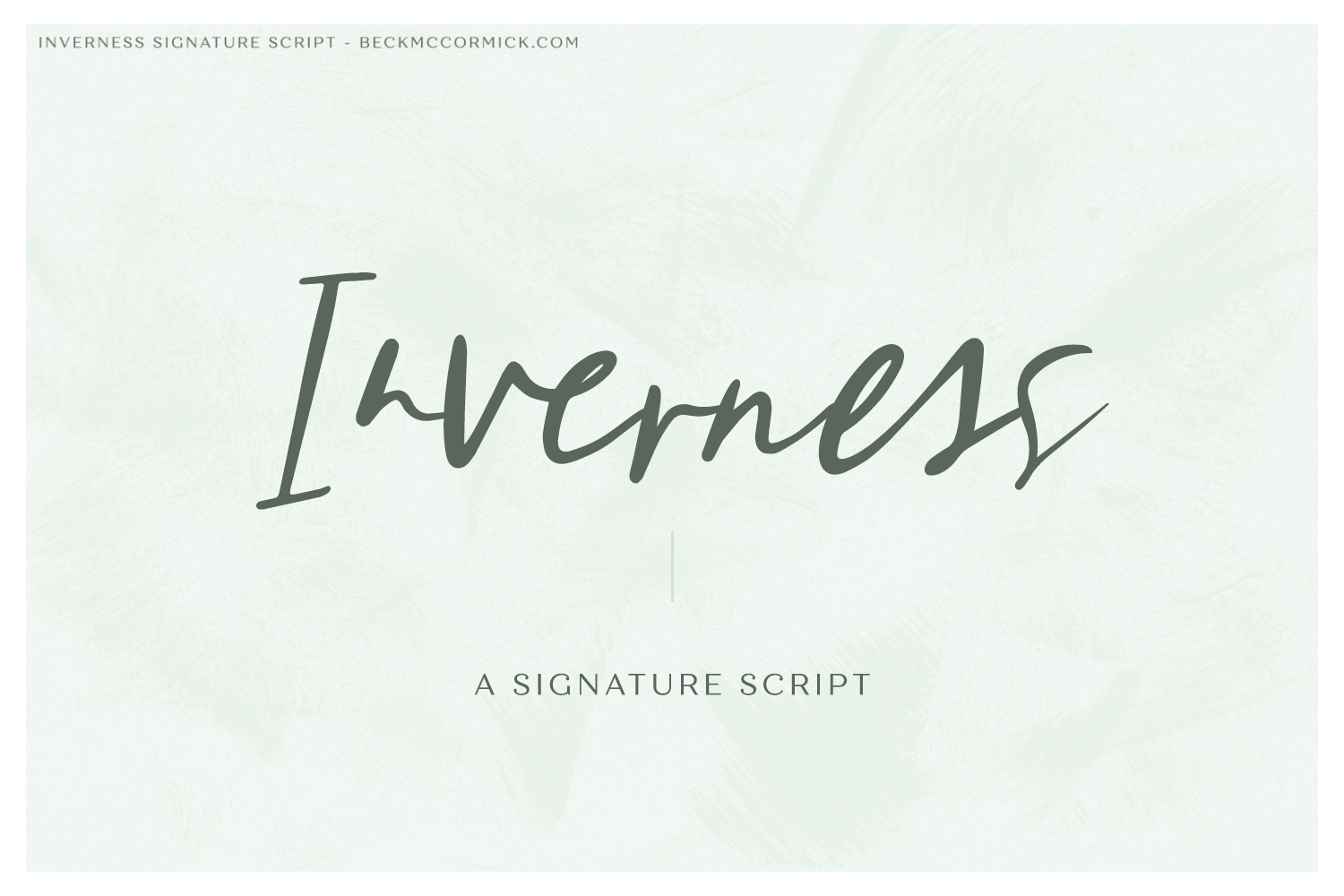
Inverness Script
Meet Inverness, a new signature-style script. Messy & irregular, Inverness mimics real handwriting when used for various projects. The features included give it an added unique flair - use ligatures and alternates to fully customize the look of your text.
Inverness is best for:
- modern, sophisticated logos + branding
- edgy quote graphics for social media
- accents on printed design materials, like magazines or flyers
- website design header elements
Inverness Signature Script includes:
- 27 lowercase alternate characters (full alphabet plus an extra “r”)
- an astounding 79 ligatures with unique connections for a super handwritten look
Ligatures include:
at al ar as at ay bb be bl br by cc ce ck co cr dd dr dy ee el er es est et ex ey ff fl fr gg gh ght gl gr il is it iy la le li ll lo lu ly mi mm nn of ol oo or os ot oy pp pr rr ss st ta te th ti to tr tt tu ul us ut uy va ve vo vu wh zz